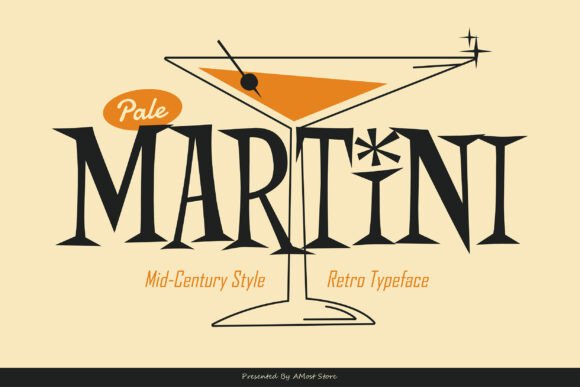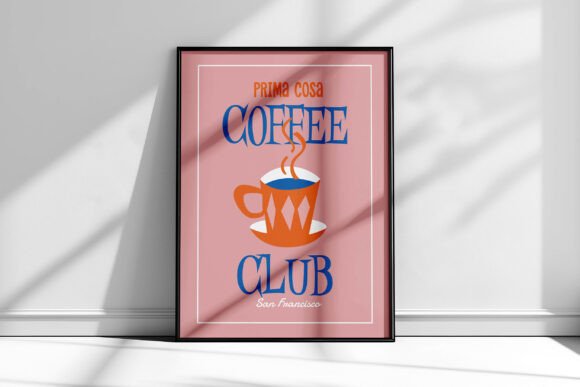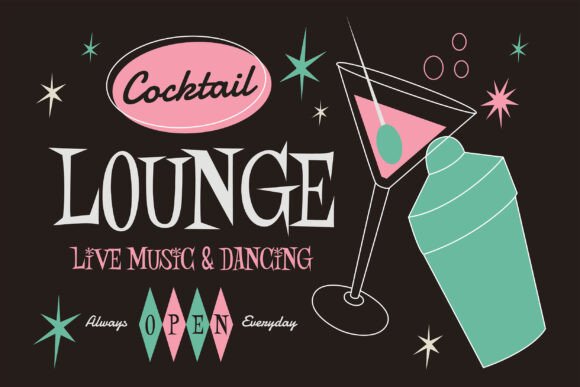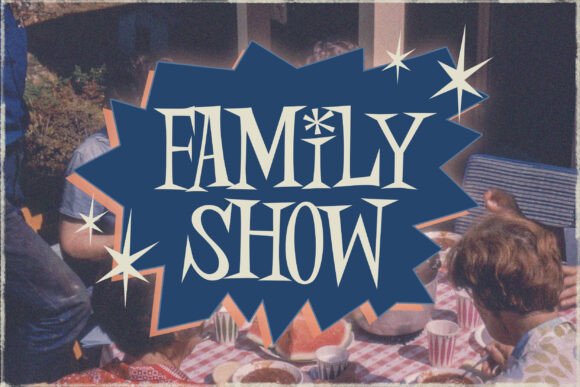
Pale Martini Font: A Groovy Retro Display Typeface
About the Pale Martini Font
Unleash your creativity with Pale Martini Font, a versatile font perfect for a wide range of applications. Pale Martini is a mid century & retro style font. Its perfect for your display or product designs such as shirts, poster designs, stickers, logos, branding, greeting cards, Cricut projects, posters, magazines, social media, planner prints and websites.
Pale Martini’s mid-century modern aesthetic shines in headlines, logos, and short-form text applications like posters and packaging. Its retro charm works well for brands aiming for a vintage or nostalgic feel. Avoid using it for body text or lengthy paragraphs; its stylistic details can become visually overwhelming at smaller sizes.
This font pairs well with clean sans-serif fonts like Helvetica or Open Sans for a balanced contrast, or with a playful script font for a more whimsical feel. A geometric sans-serif could also create a modern, yet retro-inspired combination.
Pale Martini projects a confident, yet approachable personality – perfect for brands seeking a sophisticated yet friendly image. The font’s inherent boldness makes it unsuitable for delicate or minimalist designs.
Pale Martini Font Usage Examples
Pale Martini Font Example